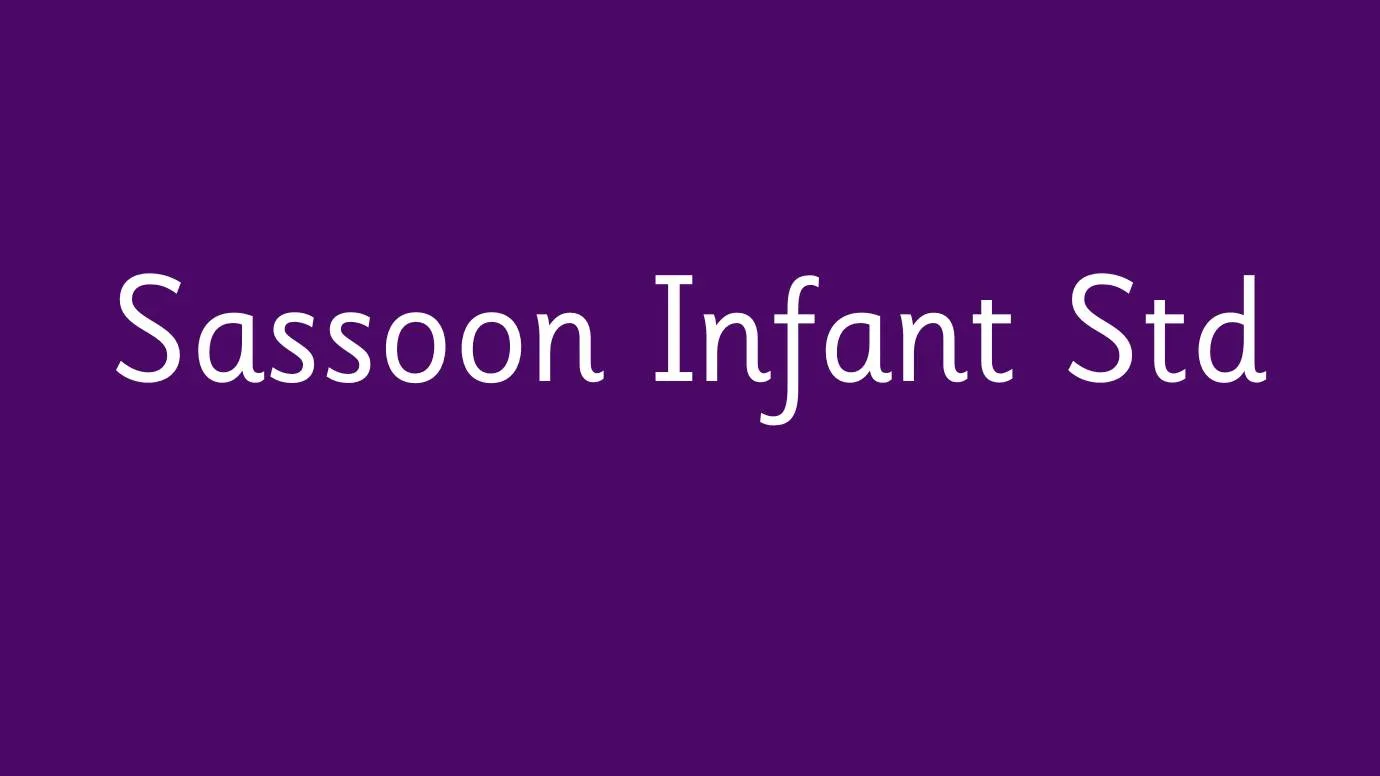
Sassoon Infant Std Font Family designed via Rosemary Sassoon, Adrian Williams and was first time posted on Sassoon Williams Foundry. That is an splendid script font. Sassoon infant font family have 8 font styles.
Sassoon Infant Std Font